Bonitha Octavy Font
Bonitha Octavy feels equally charming and elegant. It looks lovely on wedding invitations, thank you cards, quotes, greeting cards, logos, business cards and every other design which needs a handwritten touch. This font is PUA encoded which means you can access all of the glyphs and swashes with ease! It features a varying baseline, smooth lines, gorgeous glyphs and stunning alternates.
Good Things Take Time Font
Good Things Take Time is a fun and unique handwritten font. It will elevate a wide range of design projects to the highest level, be it branding, headings, designs, invitations, signatures, logos, labels, and much more!
Arionna Font
Arionna is a gorgeous script font. It features a calligraphy modern style and cute ligatures. This font is perfect for fashion brand, wedding invitation, business cards, logo, social media posts and much more!
Haworthia Font
Haworthia is a beautiful and unique handwritten font. Fall in love with its incredibly versatile style and use it to create gorgeous wedding invitations, beautiful stationary art, eye-catching social media posts, and much more!
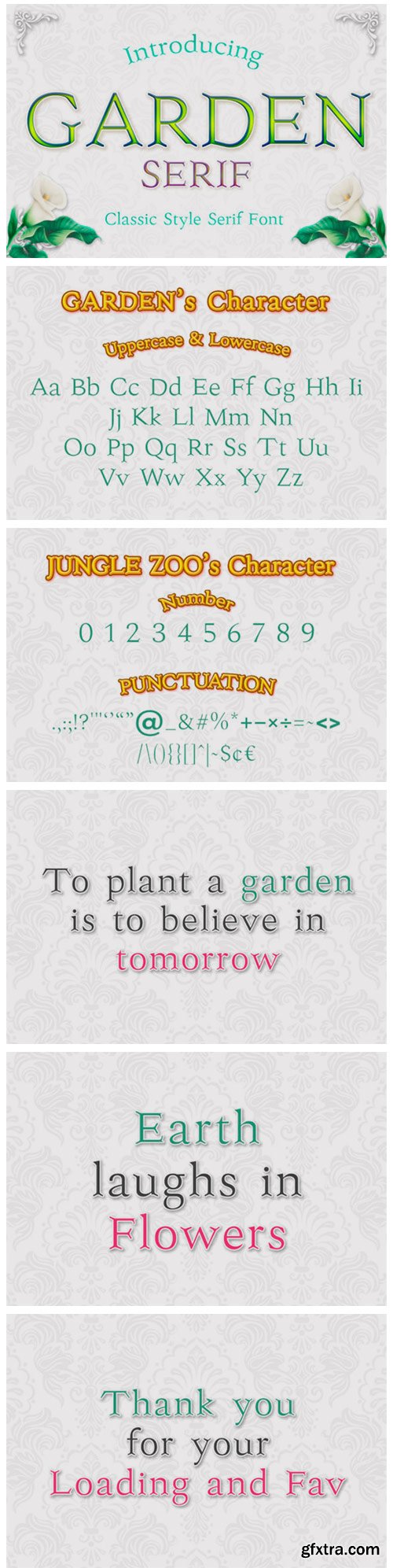
Garden Font
Garden is a minimal, yet elegant serif font. Suitable to a wide variety of designs due to its neat and simple style, Garden has the potential to become your favorite go-to font, no matter the occasion!
Marlina Melvin Font
Marlina Melvin feels incredibly romantic and unique. It looks stunning on wedding invitations, thank you cards, quotes, greeting cards, logos, business cards and every other design which needs a handwritten touch.
Las Palmas Font
Las Palmas is a distinct and flowing handwritten font. It maintains its classy calligraphic influences while feeling contemporary and fresh. Fall in love with Las Palmas and bring your projects to the highest levels!
Rattman Font
Rattman is a flowing handwritten font, described by an elegant touch, perfect for your favorite projects. Fall in love with its incredibly distinct and timeless style and use it to create spectacular designs!
Hugework Font
Hugework is a sweet and friendly handwritten font. Its natural and unique style makes it incredibly fitting to a large pool of designs. The only limit is your imagination!
Genderumo Font
Genderumo feels equally charming and elegant. It looks stunning on wedding invitations, thank you cards, quotes, greeting cards, logos, business cards and every other design which needs a handwritten touch.
Jamilla Font
Jamilla is a sweet, round lettered handwritten font. Its distinct and flowing style makes this font incredibly versatile, fitting a wide pool of designs.
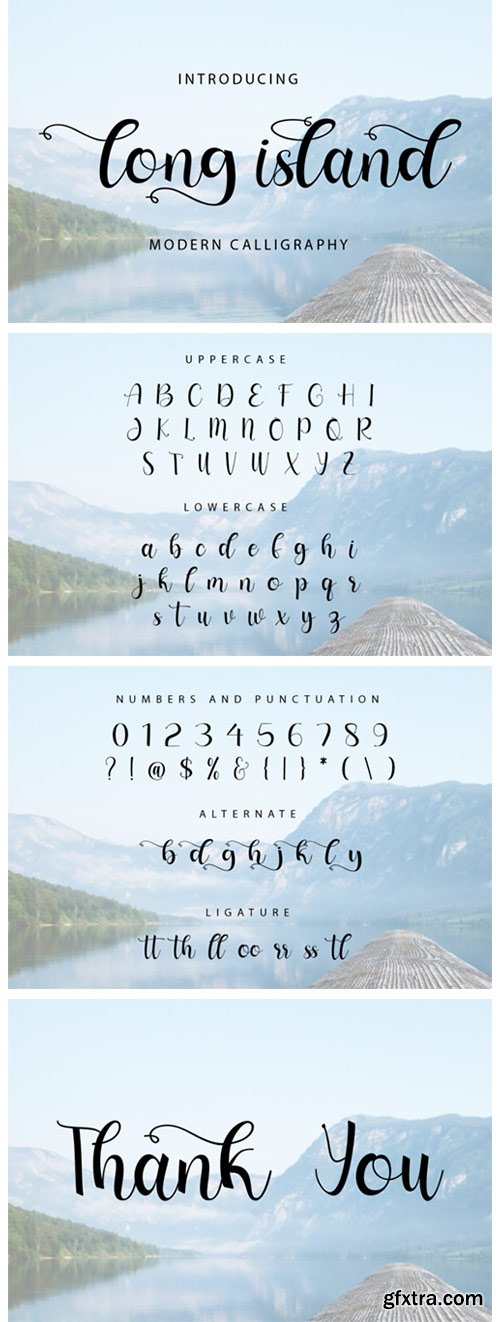
Long Island Font
Long Island is a beautiful, round lettered handwritten font. It maintains its classy calligraphic influences while feeling contemporary and fresh. Fall in love with Long Island and bring your projects to the highest levels!
Aboolgi Font
Aboolgi is a flowing handwritten font, described by an elegant touch, perfect for your favorite projects. Fall in love with its incredibly distinct and timeless style and use it to create spectacular designs!
Lickody Font
Lickody is a cute and quirky handwritten font. Its simple style makes this font incredibly versatile. Add it to your creative ideas and notice how well it matches them!
Vallenia is a sweet and stunning script font. It features a modern style and will add a unique feel to your upcoming projects. Get inspired by its authentic feel and use it to create gorgeous wedding invitations, beautiful stationary art, eye-catching social media posts, and cute greeting cards.
Introducing New Font : Larissa - Handwritten Font
Larissa - Handwritten Font is an handwritten script font based on the expression of real handwriting. Larissa - A Lovely Script Font will work perfectly for fashion, e-commerce brands, trend blogs, wedding boutiques or any business that wants to appear upscale and chic.
Cornellia Font
Cornellia is a cute and casual handwritten font with an incredibly friendly feel. It features gorgeous swashes and ligatures that make this script incredibly versatile. This font is PUA encoded which means you can access all of the amazing glyphs and swashes with ease! It also features a wealth of special features including alternate glyphs and ligatures.
Britonia Sevagus Font
Britonia Sevagus feels modern and unique. This sophisticated serif font features chunky and extended characters that will look particularly adept when used in logos, branding, packaging design, and much more.
Romusha Font
Romusha is a bold and authentic sans serif font. Suitable to a wide variety of designs due to its neat and simple style, Romusha has the potential to become your favorite go-to font, no matter the occasion!
New Class Font
New Class is a fun and friendly handwritten font. It features school-themed characters and it feels sweet and playful. Take your school projects to the next level with this unique typeface!
Astore Font
Astore is an amazing blackletter font. Get inspired by its authentic feel and use it to create beautiful stationary art, eye-catching social media posts, and much more!
Flower Fresh Font
Flower Fresh is a magical display font carefully created with a touch of elegance. It features flower-themed characters that will take your designs to the next level! It’s perfect for stationery, wedding invitations, photography, packaging and much more!